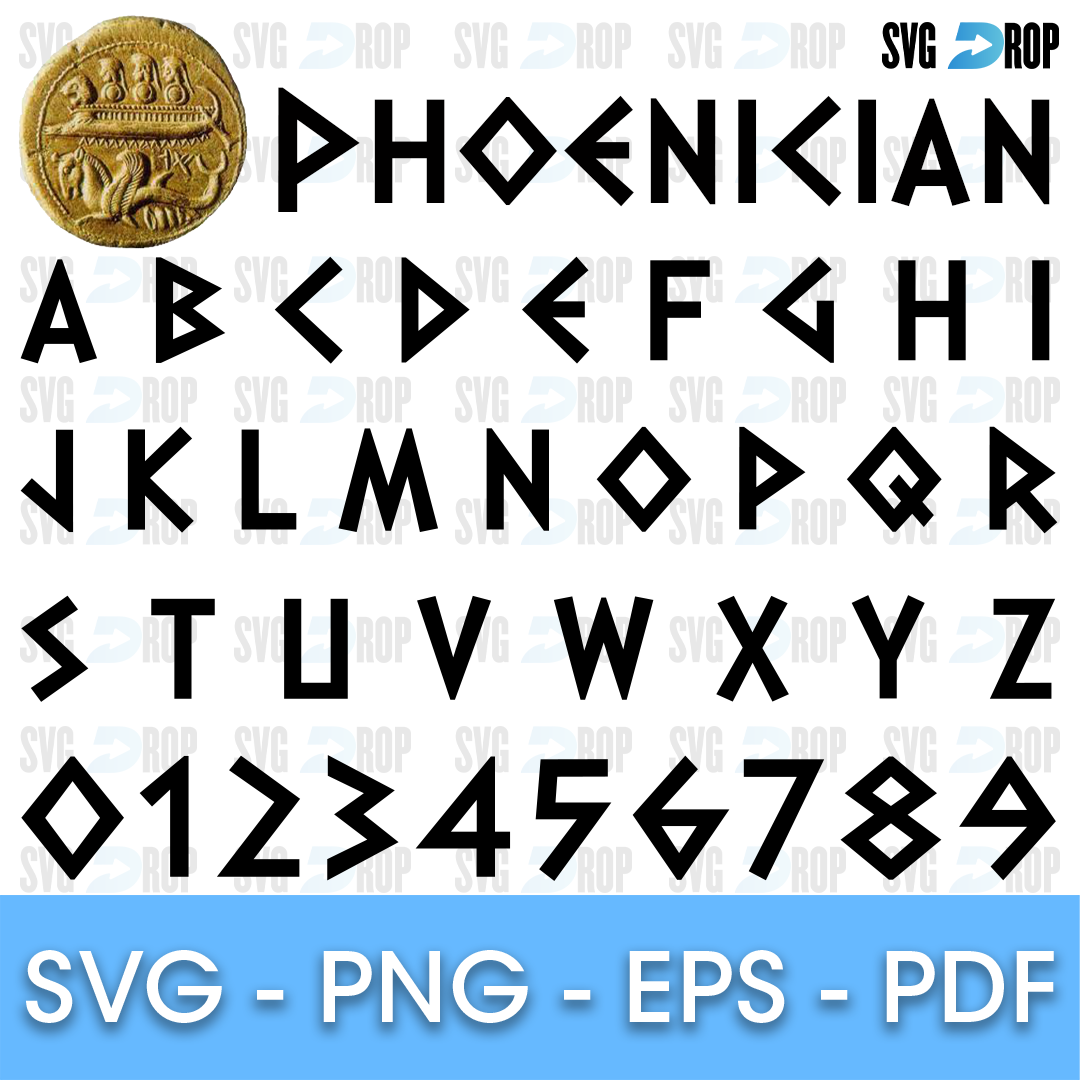
Phoenician Font SVG
✨ A Phoenician style alphabet in thin black angular capitals made of straight strokes and triangles, with numbers 0 to 9, shown with an ancient gold coin.